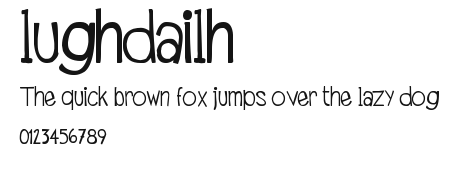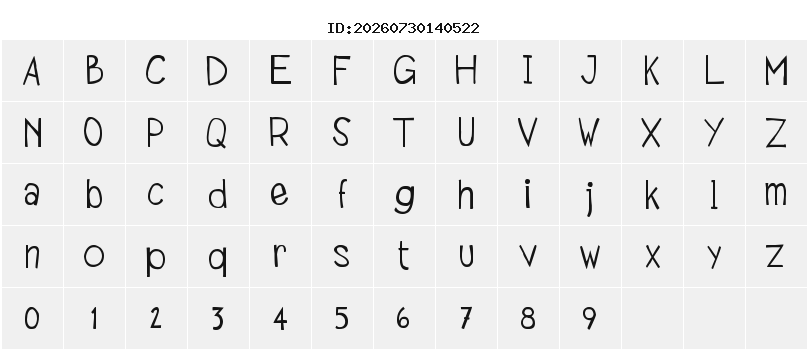
lughdailh Preview
• Font Name: lughdailh
• Font ID: lughdailh:Version 1.00
• Full Font Name: lughdailh
• Version: Version 1.00 February 2, 2006, initial release
• PostScript Name: lughdailh
About lughdailh.ttf
lughdailh.ttf is a modern, elegant sans-serif font designed for ultimate readability and visual harmony. Perfect for branding, headlines, web design, and print materials.